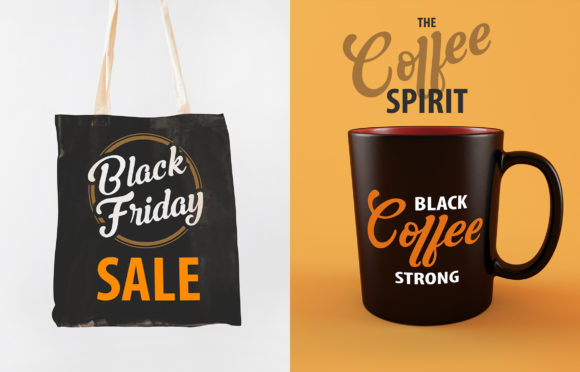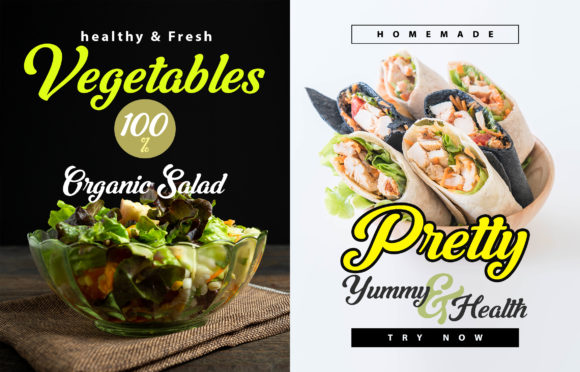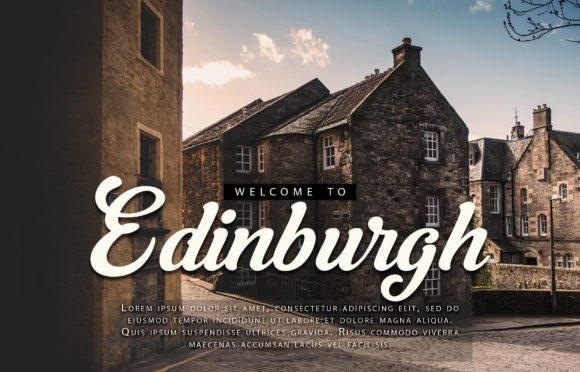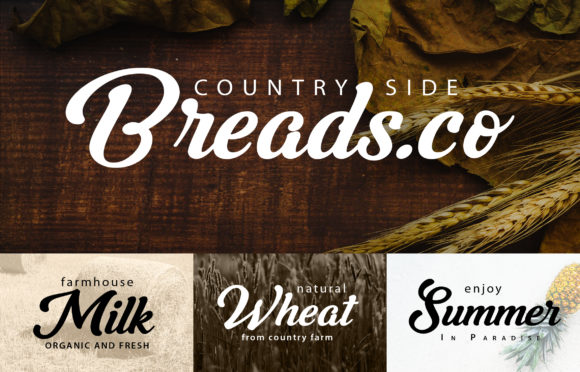
Unleashing Your Creativity with the Grandiose Font
Have you ever found yourself rummaging through your sketchbook, searching for the perfect font to bring your design to life? The blank page stares back at you, taunting you to create something truly special. It’s in these moments that we need a font that speaks to our artistic souls, a font that exudes elegance and sophistication. Enter the Grandiose Font, a stunning handwritten font designed to elevate your designs and leave a lasting impression.
Whether you’re a seasoned designer or a creative enthusiast, the Grandiose Font is the perfect addition to your toolkit. Its PUA encoding and special features, including alternate glyphs and ligatures, make it incredibly versatile and easy to use. With the Grandiose Font, you’ll be able to create stunning invitations, greeting cards, and branding materials that reflect your unique style and flair.
Grandiose Font Key Features
- Unique Characteristics: Grandiose Font features a distinctive, elegant design with intricate details and ornate flourishes, making it perfect for use in high-end branding, packaging, and publishing projects.
Grandiose Font Review
Overall, I’d say that “Grandiose Font” is a solid choice for those looking to add a touch of luxury to their designs. ✨ Here are some of its strengths:
- Unique aesthetic: The font has a distinct, high-end feel that’s perfect for luxury brands or high-end designs.
- Highly customizable: Grandiose Font offers a wide range of options for tweaking the font to fit your specific needs.
- Professional look: The font is well-designed and has a polished appearance that’s sure to impress.
However, as with any font, there are some limitations to consider: ⚠️
- Not suitable for small text: The font is quite ornate and may be difficult to read in smaller sizes.
- Limited font sizes: The font only comes in a few sizes, which may limit its versatility.
- Not ideal for body text: The font is best used for headings or titles, as it may be too flashy for large blocks of text.
In conclusion, I’d say that “Grandiose Font” is a great choice for designers who want to add a touch of elegance to their work. While it may not be suitable for every project, it’s definitely worth considering for the right application.
Getting the Most Out of Grandiose Font
For best results, use Grandiose Font in headings and titles to add a touch of drama and elegance. Avoid using it for large blocks of text, as it can be overwhelming. Experiment with different font sizes and colors to create a visually appealing design.
Grandiose Font is ideal for:
– Creating eye-catching headings and titles.
– Designing luxury brand materials.
– Adding a touch of sophistication to wedding invitations and event materials.
Alternatives to Grandiose Font
Playfair Display is a luxurious and elegant serif font, perfect for use in high-end branding, luxury goods, and premium products. It features intricate details and a classic feel. When to use: luxury branding, high-end products, and premium services.
Comparison: Grandiose Font is more dramatic and over-the-top, while Playfair Display is more refined and sophisticated. Playfair Display is suitable for a wider range of applications, from formal invitations to luxury packaging.
Didot is a classic and refined serif font, ideal for use in high-end branding, fashion, and luxury goods. It features a clean and elegant design with a touch of sophistication. When to use: luxury fashion, high-end branding, and premium services.